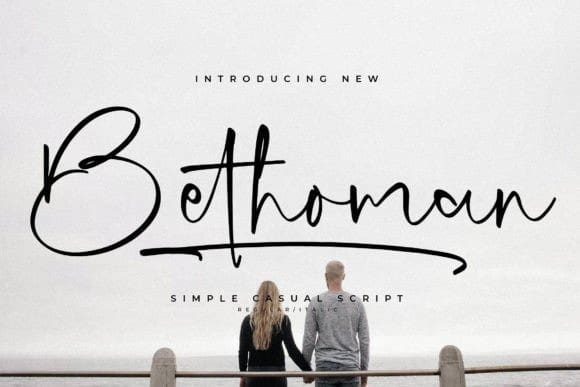
Bethoman Script Font
Bethoman Script Font – Simple Casual Script , from Glorytype Studio, suitable for any projects such as: logos, branding projects, homeware designs, product packaging, mugs, quotes, posters, shopping bags, t-shirts, book covers, name card, invitation cards, greeting cards, label, photography, watermark, special events, and all your other lovely projects that need a beautiful script taste.